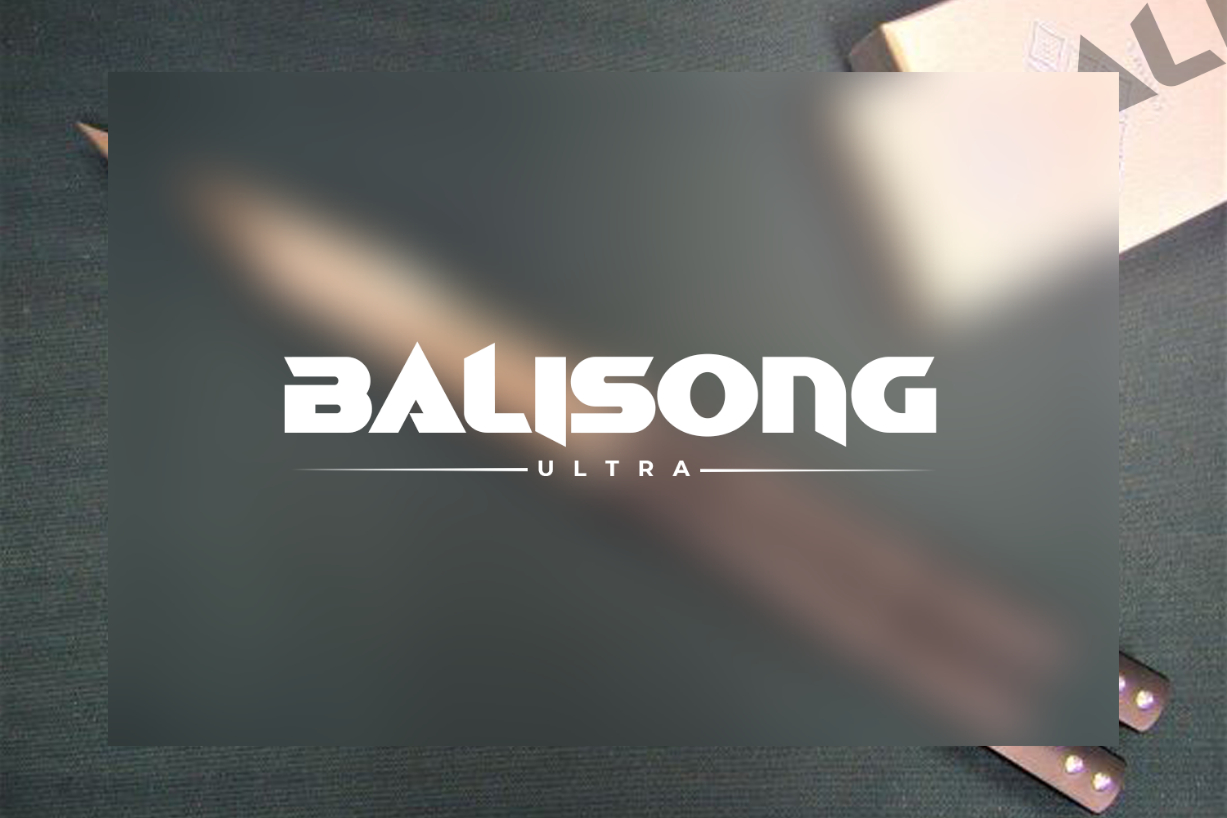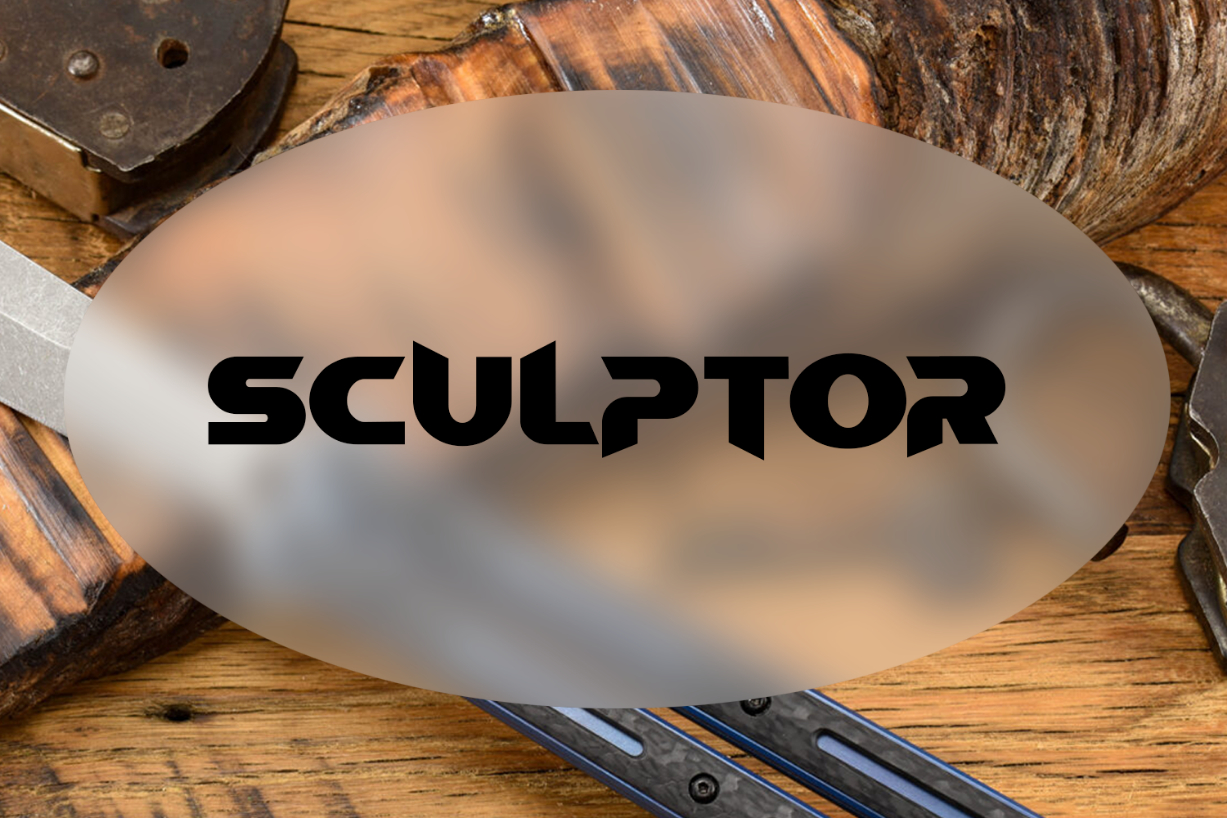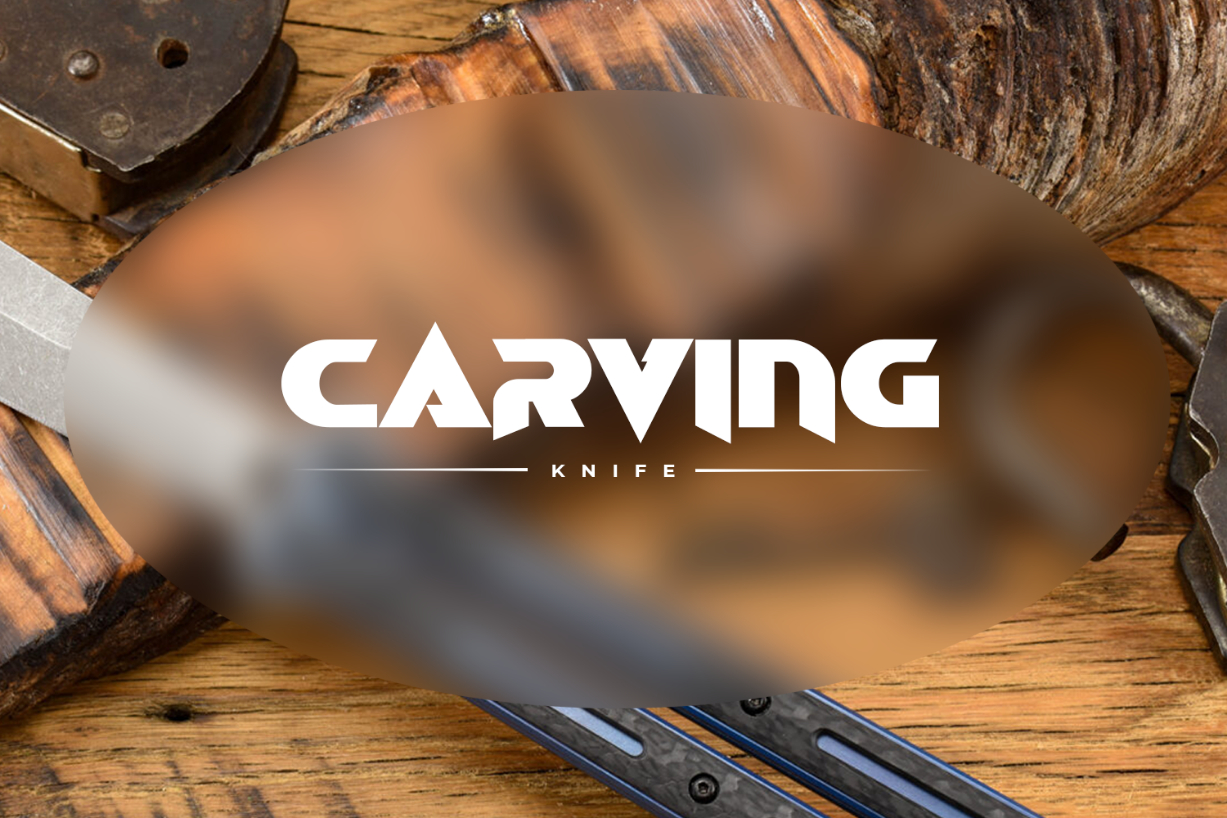
Balisong Ultra Font
About Balisong Ultra Font
Balisong is an impressive font family featuring a bold wide typeface with two distinct members: Ultra Bold and Ultra Bold Italic. This versatile and striking font family combines modern aesthetics with a touch of timeless elegance, offering designers a range of creative possibilities.
Balisong Ultra Bold:
Balisong Ultra Bold is the pinnacle of boldness, commanding attention with its robust, wide letterforms. This typeface is ideal for making a powerful statement in headlines, titles, and branding. Its confident and substantial appearance ensures readability even at large sizes, while its clear, balanced design maintains an air of sophistication.
Balisong Ultra Bold Italic:
Balisong Ultra Italic adds a dynamic and expressive twist to the font family. With its slanted and italicized letterforms, it exudes energy and creativity. This style is perfect for adding flair and emphasis to your design projects, whether it’s for creative headlines, artistic posters, or eye-catching logos.